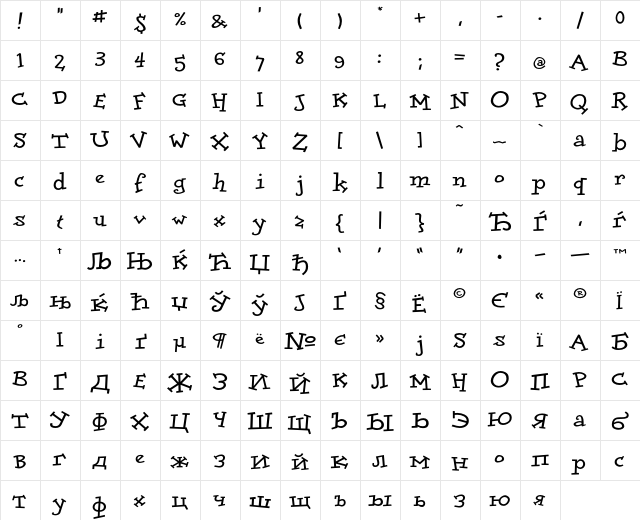
DoloresCyr Bold
Design Context for DoloresCyr Typeface
DoloresCyr is a composed and adaptable typeface that performs quietly and consistently across a wide range of design contexts. The heavy weight commands attention and anchors typographic hierarchies.
Pro Tip: Pair DoloresCyr with a font of contrasting weight or personality to build a more expressive typographic hierarchy.